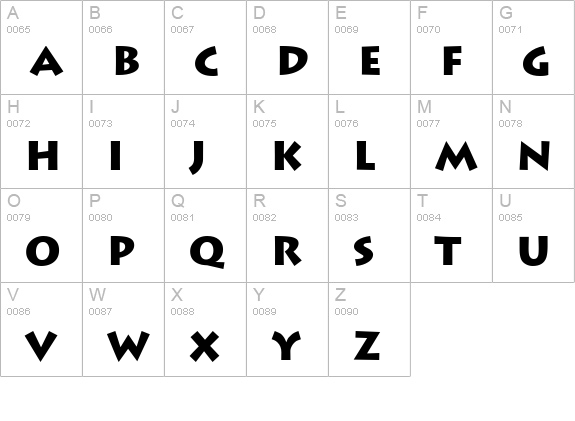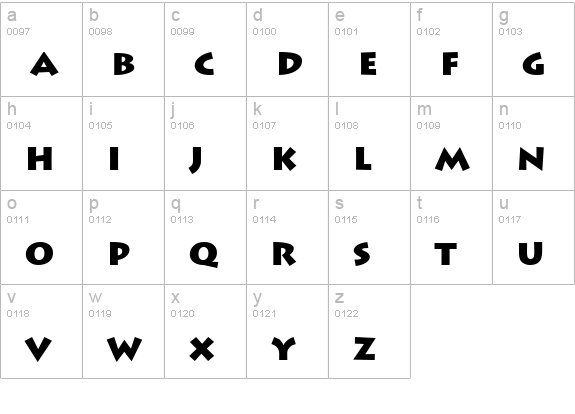
LeeToscanini9 BlackSH Font Details
LeeToscanini9 BlackSH is a bold and striking font that exudes elegance and sophistication. With its sleek and modern design, this font is perfect for creating eye-catching headlines, logos, and titles that demand attention. The strong and confident letterforms of LeeToscanini9 BlackSH make it a versatile choice for a wide range of design projects. What sets LeeToscanini9 BlackSH apart is that it is free to download, making it accessible to designers and creatives of all levels. Whether you're a professional graphic designer or a hobbyist looking to add a touch of style to your projects, LeeToscanini9 BlackSH is the ideal font choice. It offers a high-quality and professional look without the cost associated with premium fonts. Downloading LeeToscanini9 BlackSH is as easy as visiting FontsMarket.com, where it is readily available for free. This means that you can start incorporating this remarkable font into your designs without any hassle. FontsMarket.com provides a user-friendly platform that allows you to explore a vast collection of fonts, including LeeToscanini9 BlackSH, ensuring that you have access to the best typography resources. So, whether you're working on a branding project, a magazine layout, or a website design, LeeToscanini9 BlackSH is a font that will elevate your work to new heights. Its bold and captivating style will make a lasting impression on your audience, while its accessibility and availability for free on FontsMarket.com make it a valuable asset in your design toolkit. Download LeeToscanini9 BlackSH today and discover the limitless possibilities it brings to your creative endeavors.